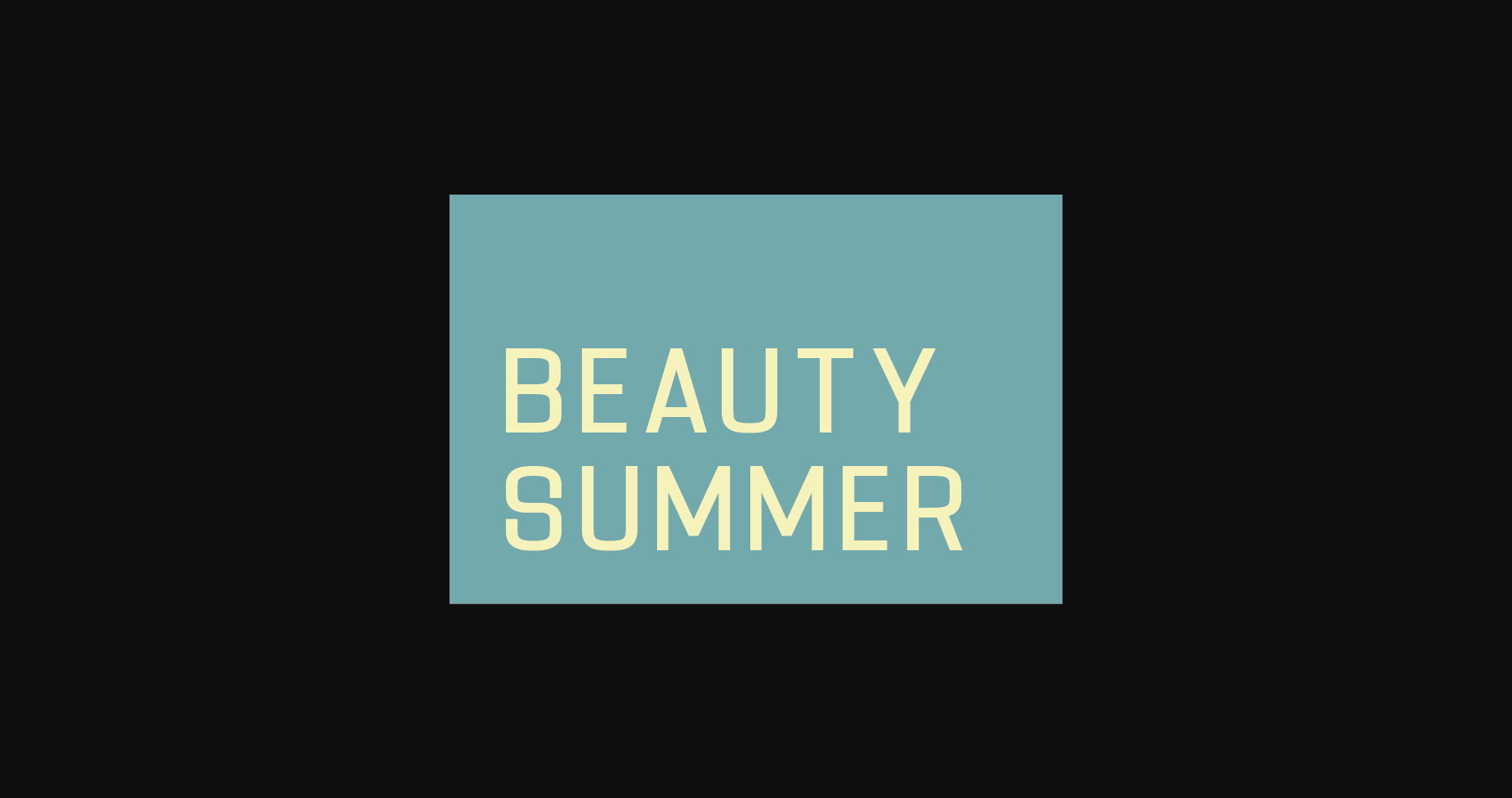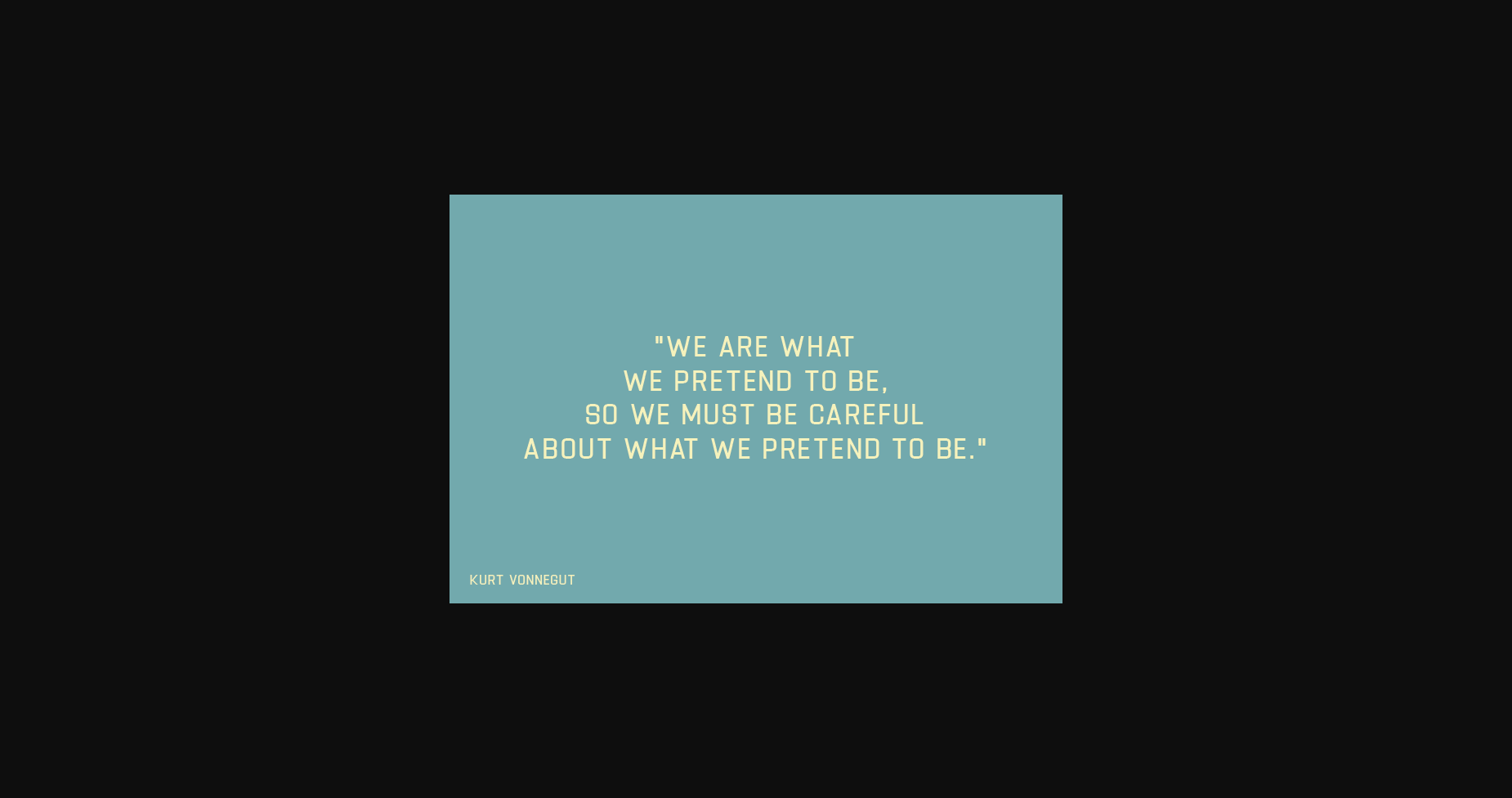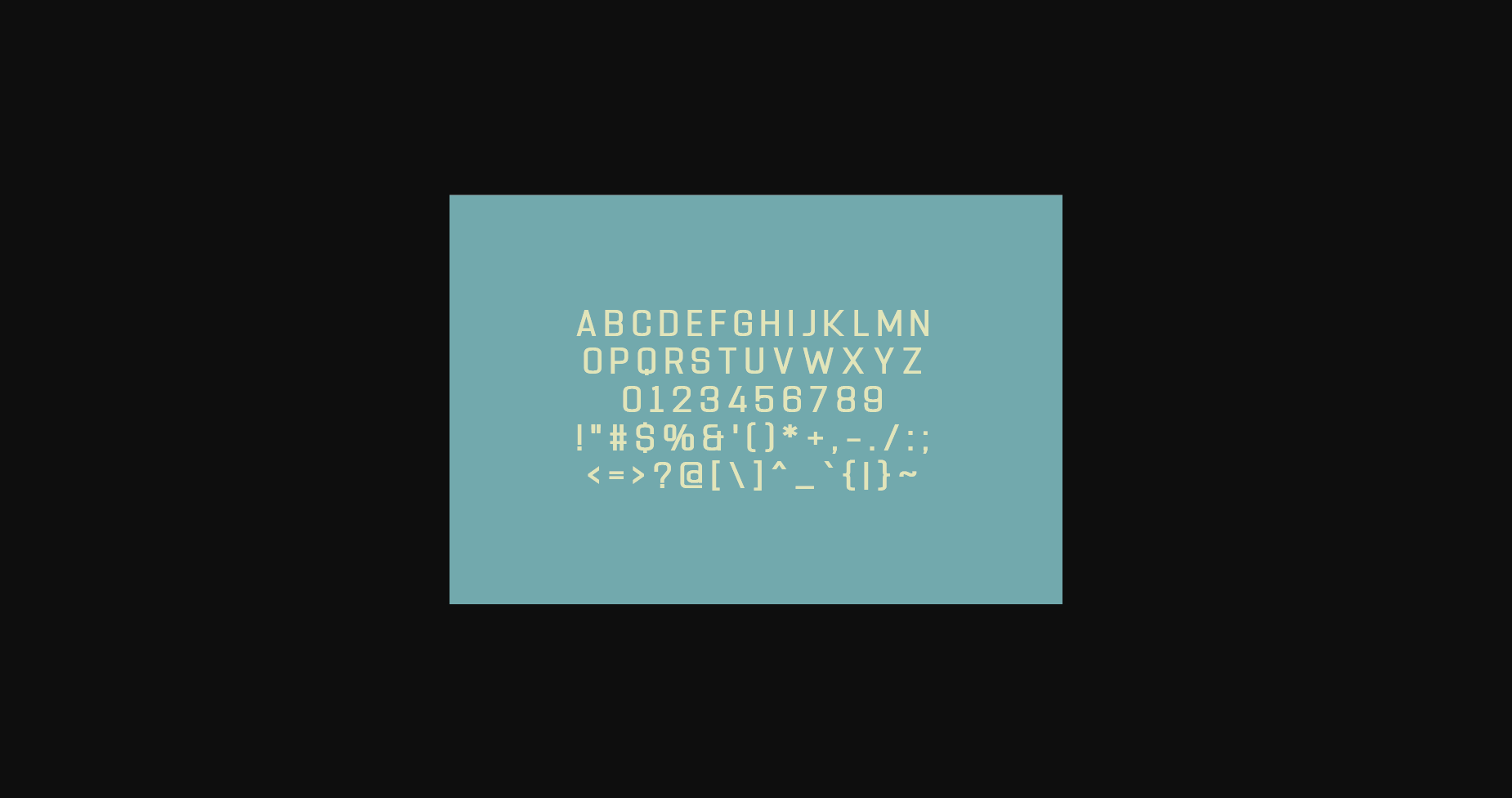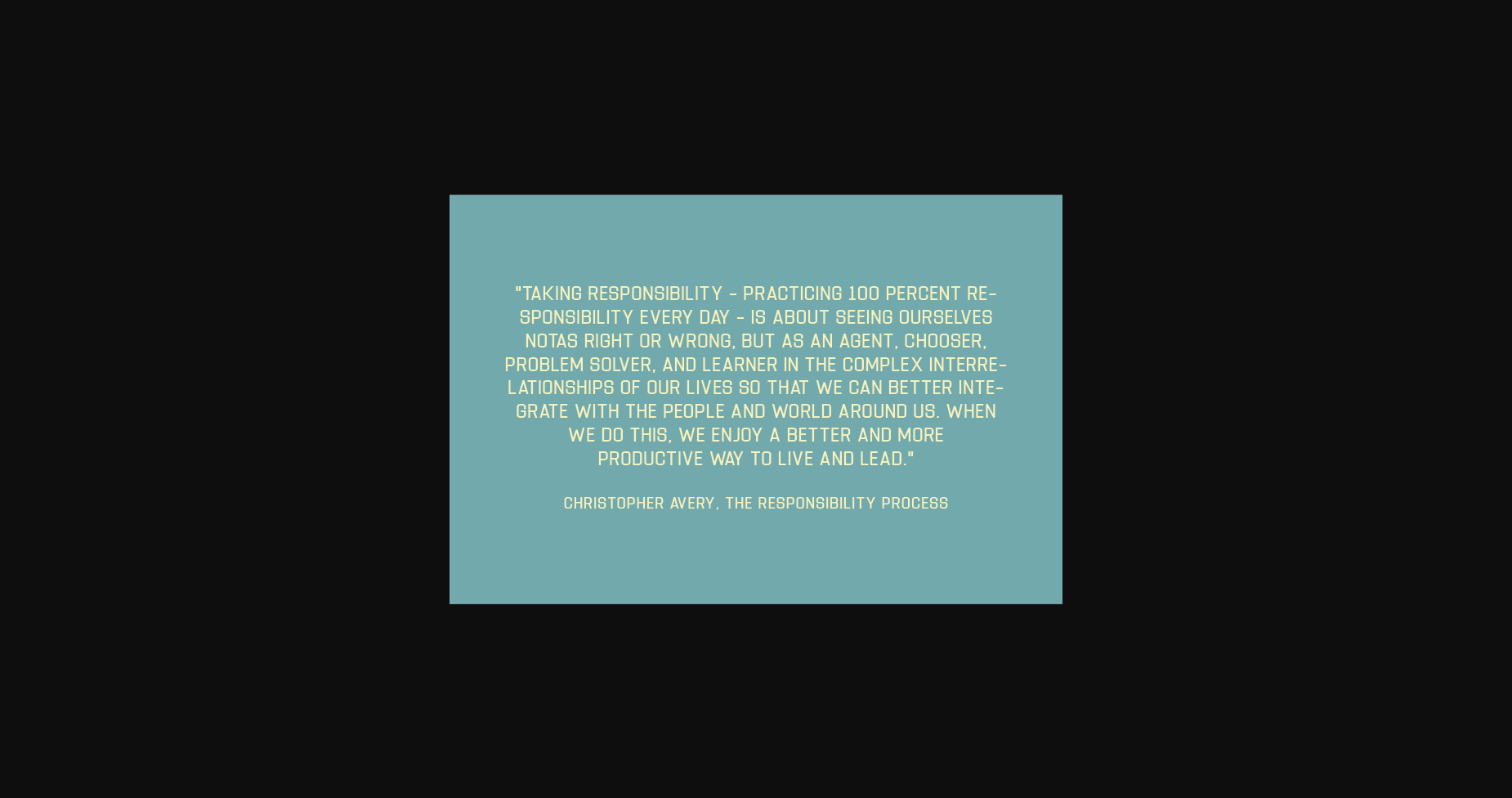
Beauty Summer Font
About Beauty Summer Font
Beauty Summer is a modern, classy sans serif typeface. Extremely versatile, this typeface is perfect for logos, weddings, invitations, quotes, advertisements, print, magazines, and more!